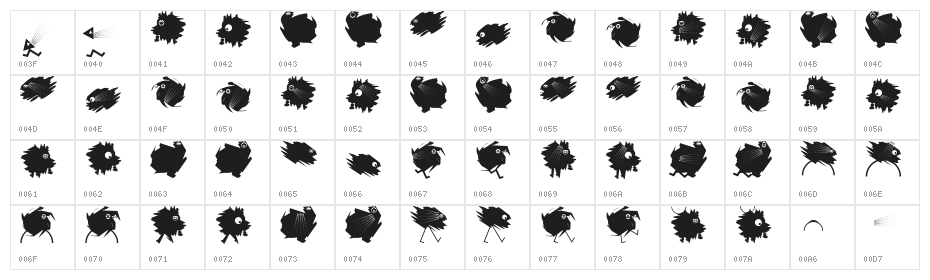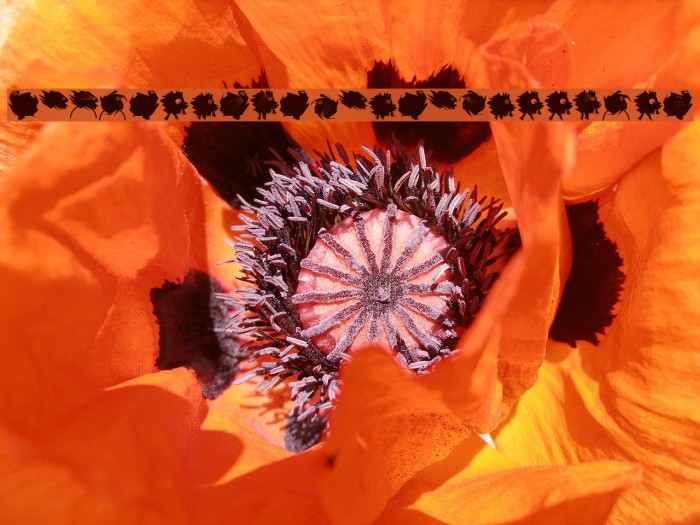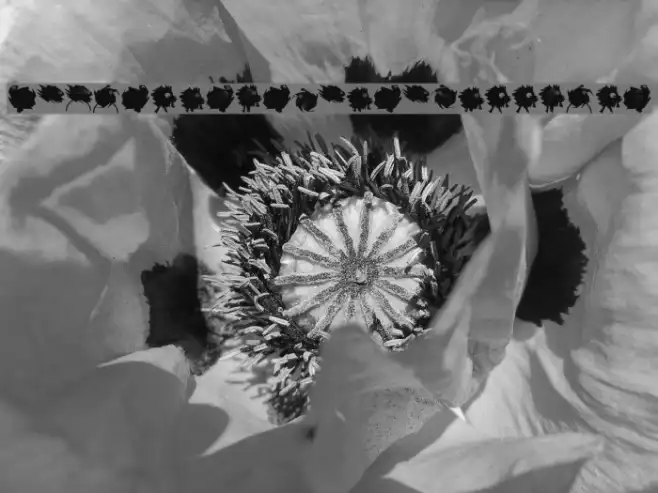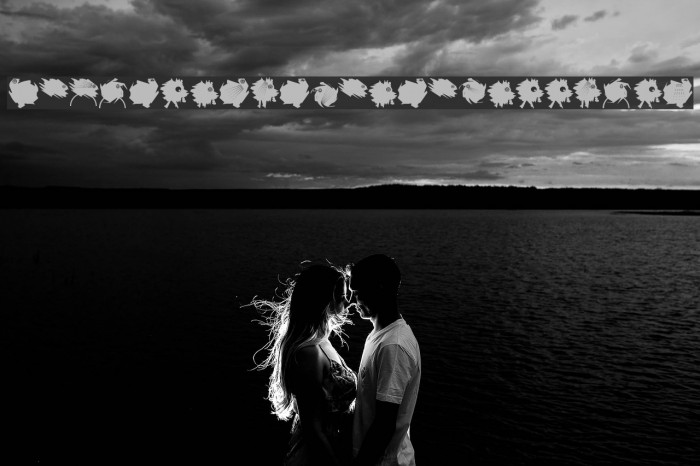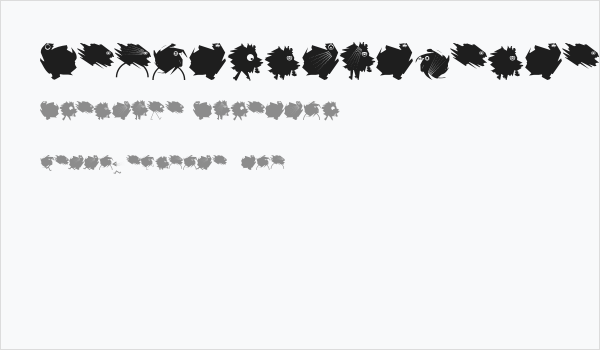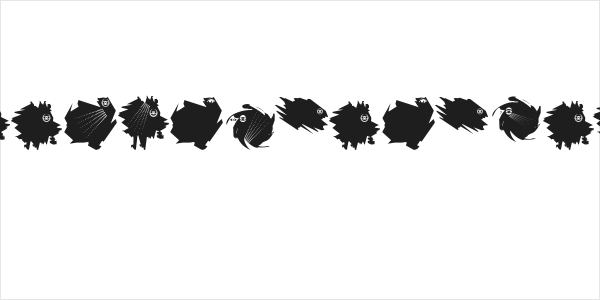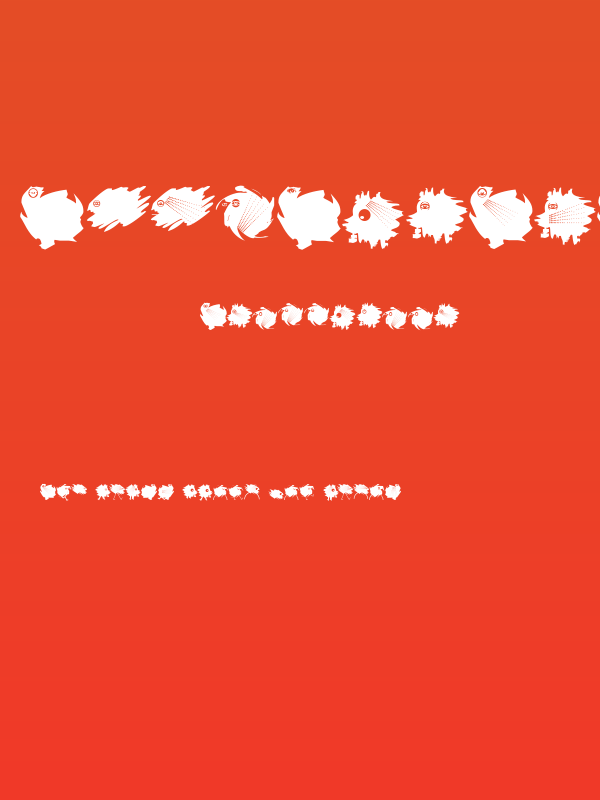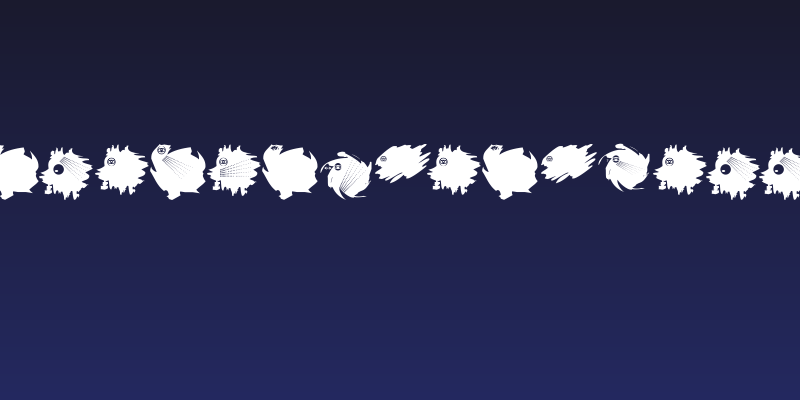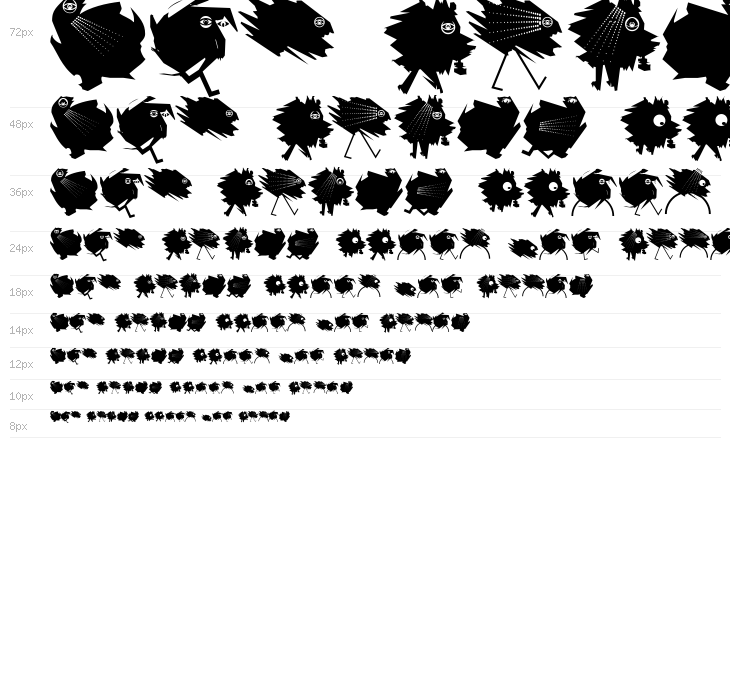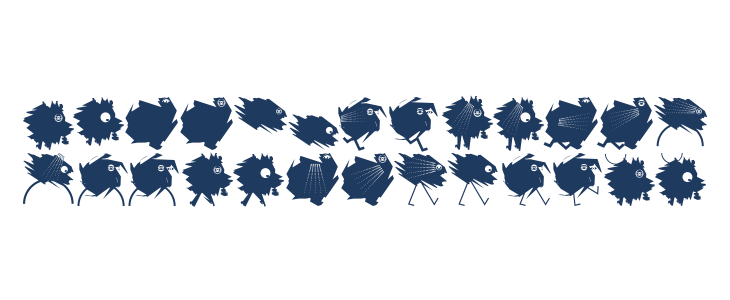
DemocraticPeaceWarriors Font
DemocraticPeaceWarriors Description
This font is a highly creative and whimsical design, featuring characters that resemble abstract, playful creatures. Each letter is crafted with unique shapes and patterns, giving the font a lively and dynamic appearance. The characters are bold and heavily stylized, with intricate details that make them stand out. The overall design is reminiscent of artistic doodles, with a sense of movement and energy. This font is not suitable for traditional text but serves as an artistic expression, perfect for projects that require a touch of humor and creativity.
Use CaseLogos, Artistic projects, Illustrations
Proposed ProjectsIdeal for children's book illustrations, creative posters, playful branding, and artistic projects that require a unique and humorous touch.